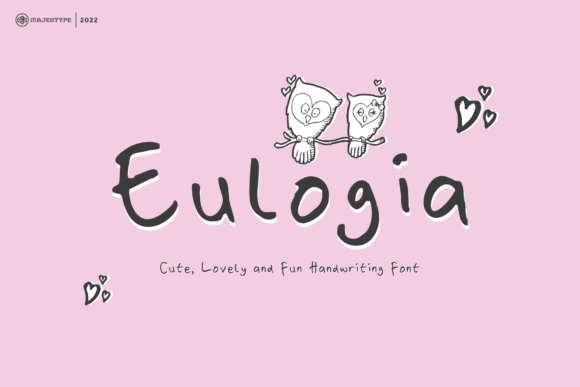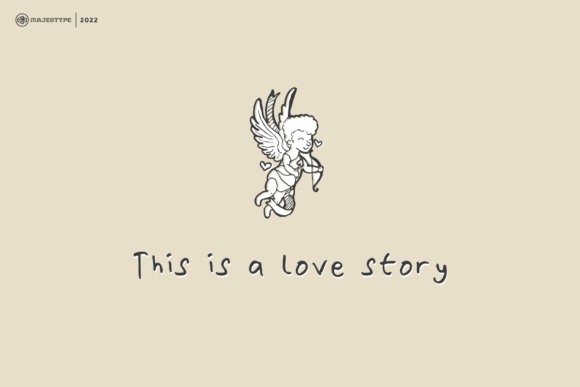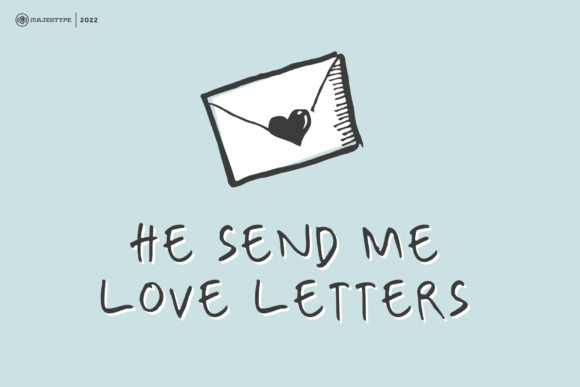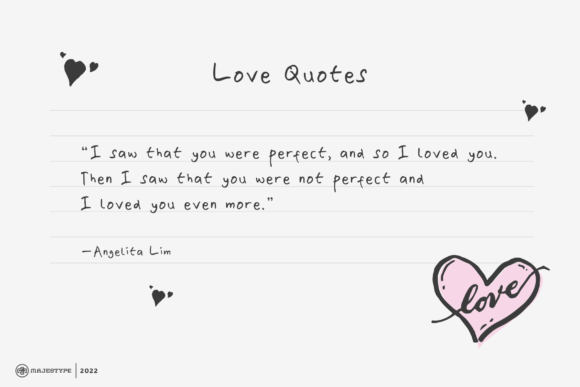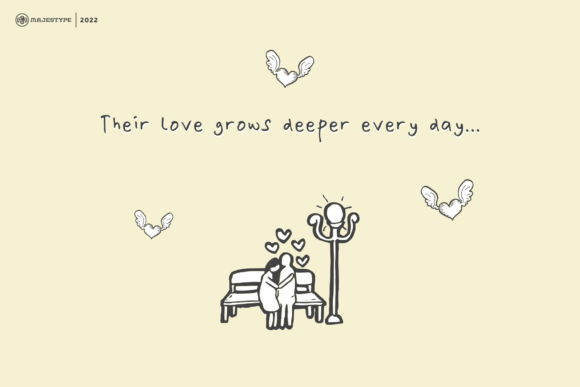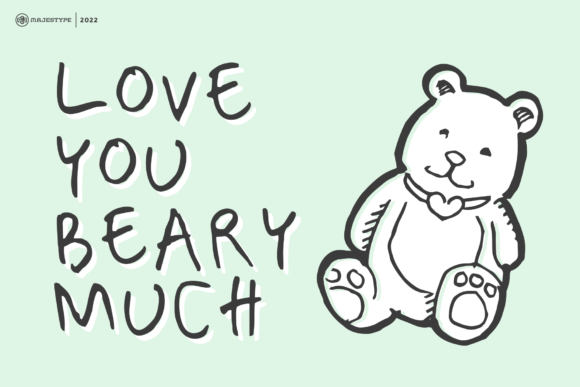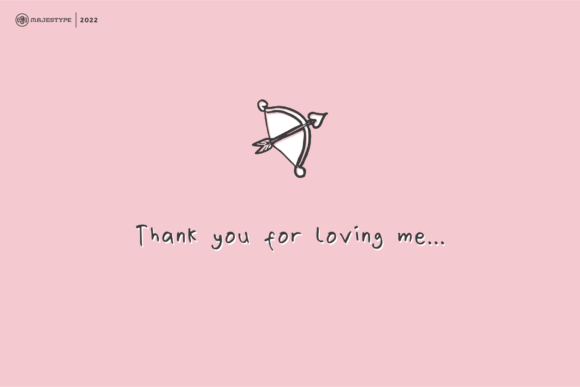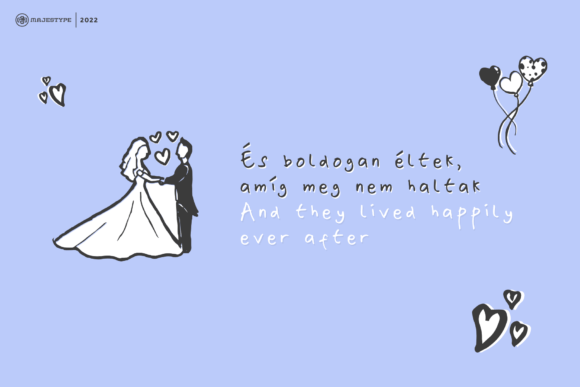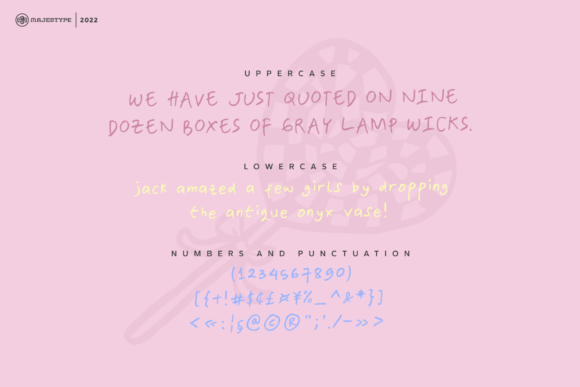
Eulogia Font
About Eulogia Font
“Eulogia” is an adorable, lovely, and playful handwritten font that has been crafted with care, created from scratch using markers. This font is a testament to the warmth of handmade creations, bringing love, fun, and a distinctive feel to your designs.
The cute and charming nature of “Eulogia” makes it particularly well-suited for various applications. Imagine using it in comics, where its playful style adds character to dialogue and captions. Picture it in displays or titles, where the handwritten touch brings a unique and inviting vibe to the visual elements.
Children’s designs, in particular, can benefit immensely from the whimsical charm of “Eulogia.” Whether you’re working on book covers, posters, or any creative project for kids, this font introduces a delightful and friendly element that resonates with a younger audience.
The handwritten quality of “Eulogia” adds a personal and organic touch to your designs, creating a connection between the content and the audience. It captures the essence of creativity and individuality, making it a great choice for projects that aim to stand out with a handmade aesthetic.
In summary, “Eulogia” is not just a font; it’s a crafted expression of love and fun. It brings a unique feel to your designs, making it perfect for various creative endeavors, especially those aimed at children or projects where a whimsical and handmade touch is desired. Let “Eulogia” be the playful companion that infuses your designs with joy and character.